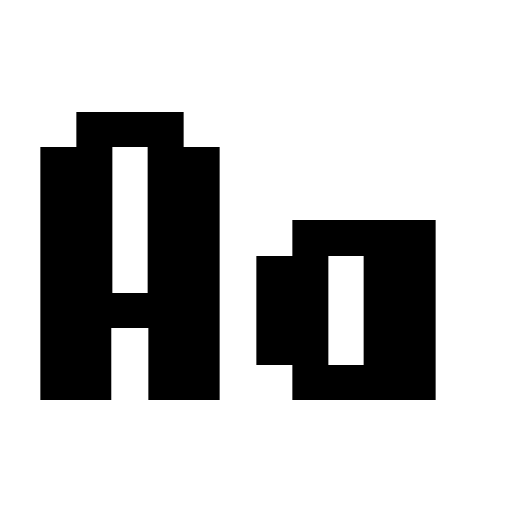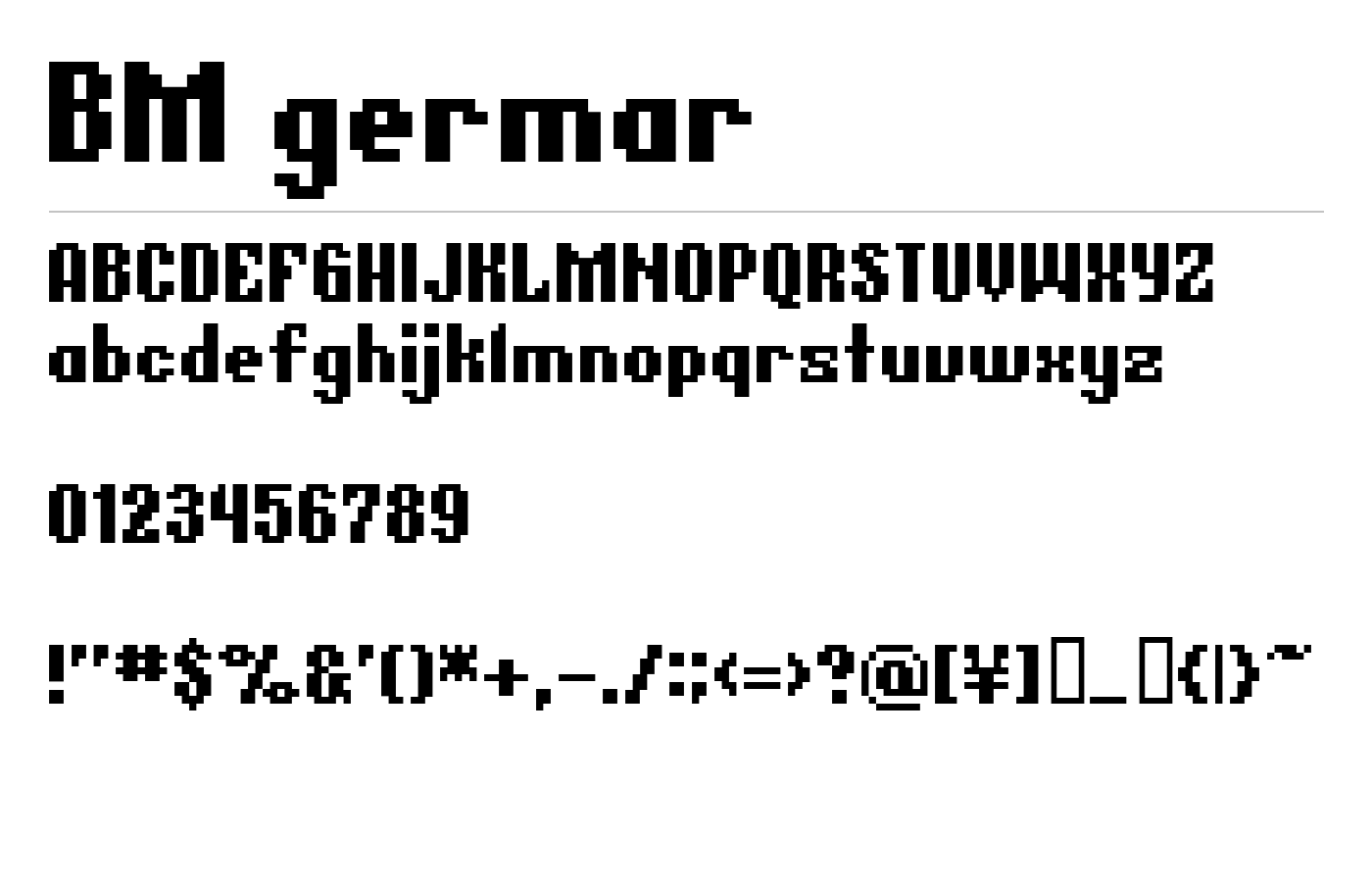
BM Germar is a bold, geometric sans serif font characterized by its blocky, pixelated style with sharp, squared edges that evoke a retro, digital aesthetic. Its condensed forms and consistent thickness create a strong, modern look suitable for tech-inspired designs, video game graphics, and bold headlines where a distinctive, vintage digital vibe is desired. This font works best in display settings where its unique, pixel-art style can stand out and make a striking visual impact.
BM germar Font